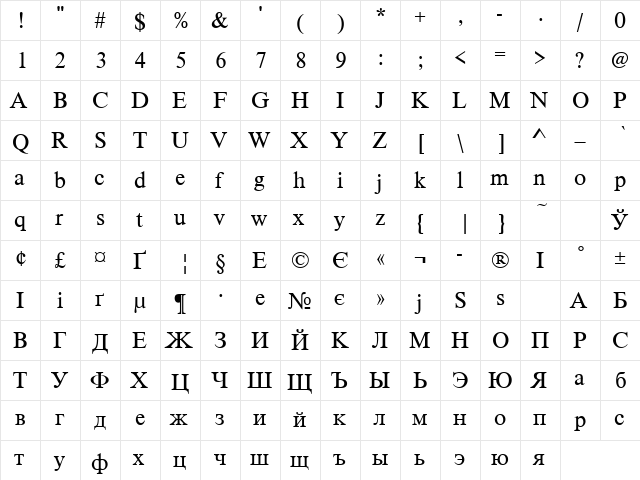
CyrillicEnglishTimesSSK Regular
Design Context for CyrillicEnglishTimesSSK Typeface
CyrillicEnglishTimesSSK takes a measured approach to typography — its balanced proportions and neutral character make it a reliable workhorse for both digital and print work.